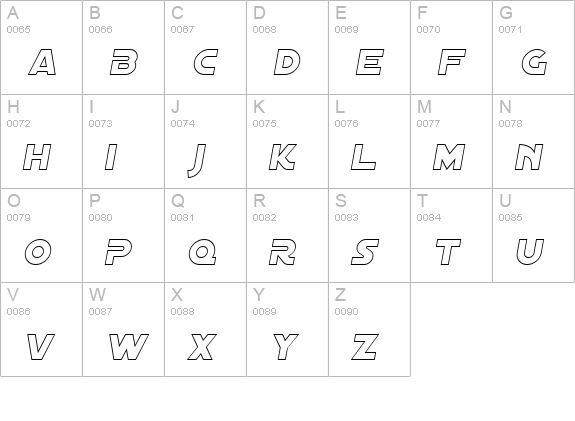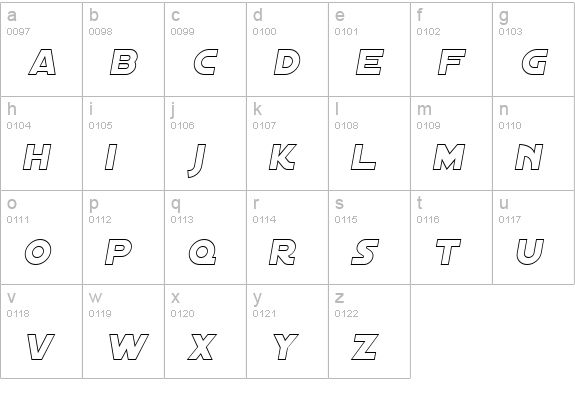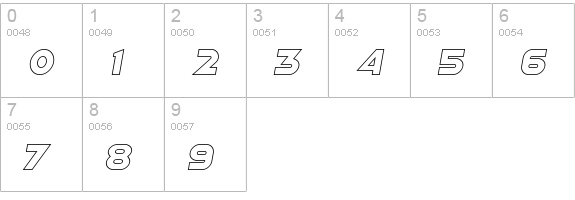
Distant Galaxy Outline Italic is a distinctive, italic variant in the Distant typeface family \xE2\x80\x94 well suited to design and typography projects.
Distant Galaxy Outline Italic font is a stunning and futuristic typeface that will transport your designs to a galaxy far, far away. Its sleek and modern appearance, combined with the unique italicized outline style, makes it perfect for projects that require a touch of cosmic elegance. Whether you're working on sci-fi themed designs, space-related projects, or simply want to add a futuristic flair to your work, Distant Galaxy Outline Italic font is sure to impress. Best of all, this captivating font is available for free download at FontsMarket.com. So, you can elevate your designs without breaking the bank. Don't miss out on the opportunity to incorporate this eye-catching typeface into your projects and bring a touch of interstellar charm to your creations. Download Distant Galaxy Outline Italic font today and let your imagination soar to new galaxies of creativity.